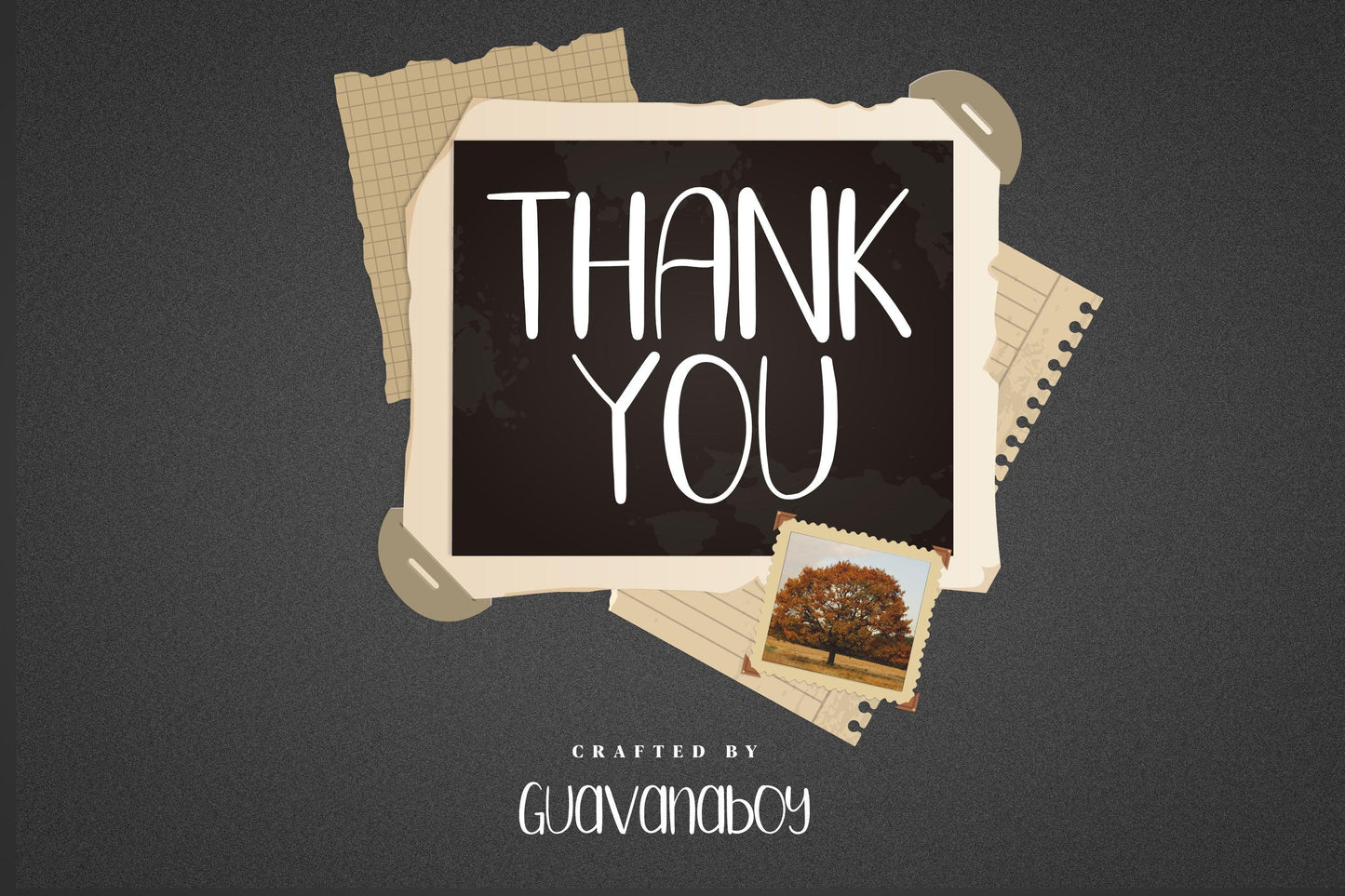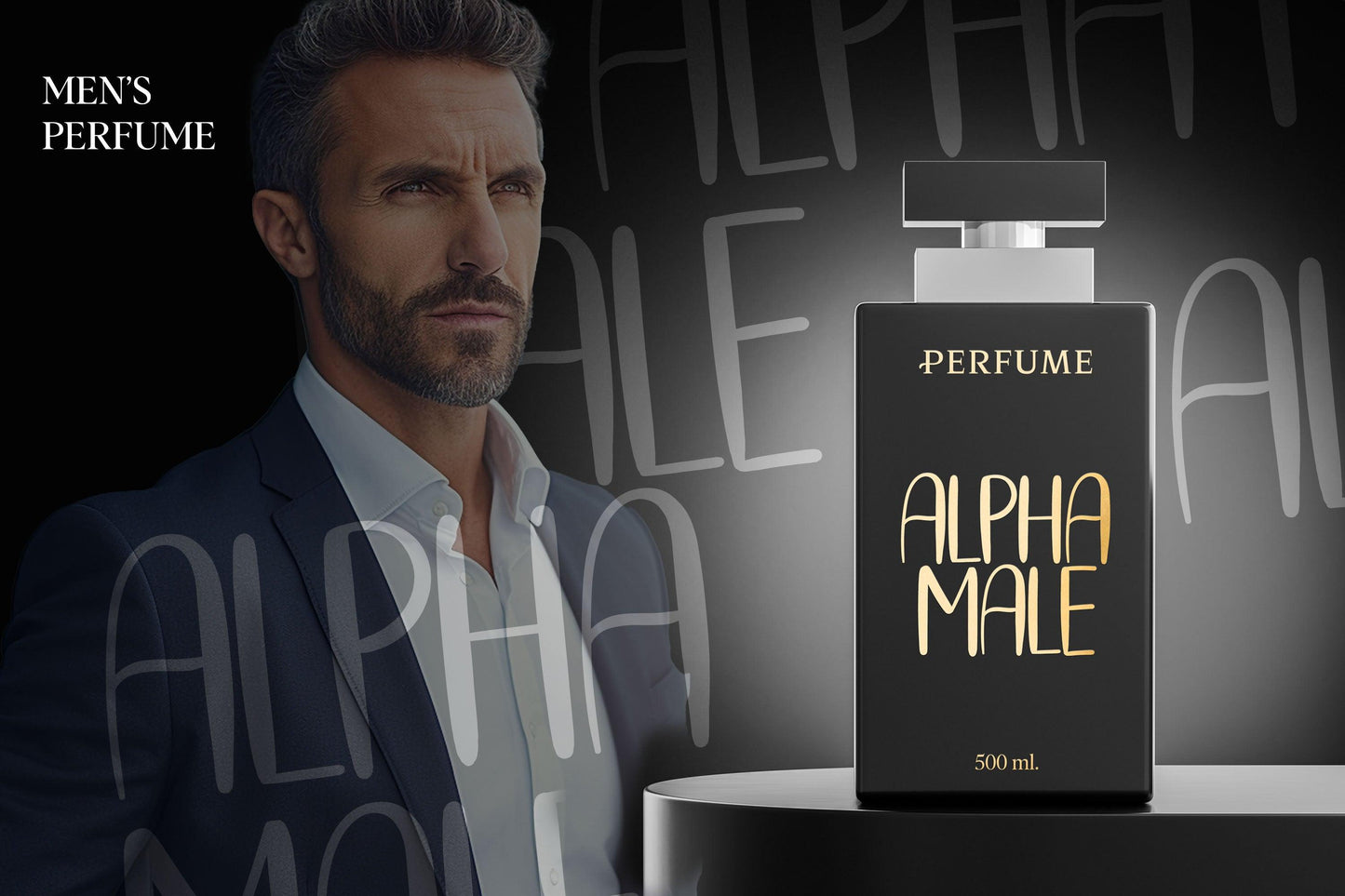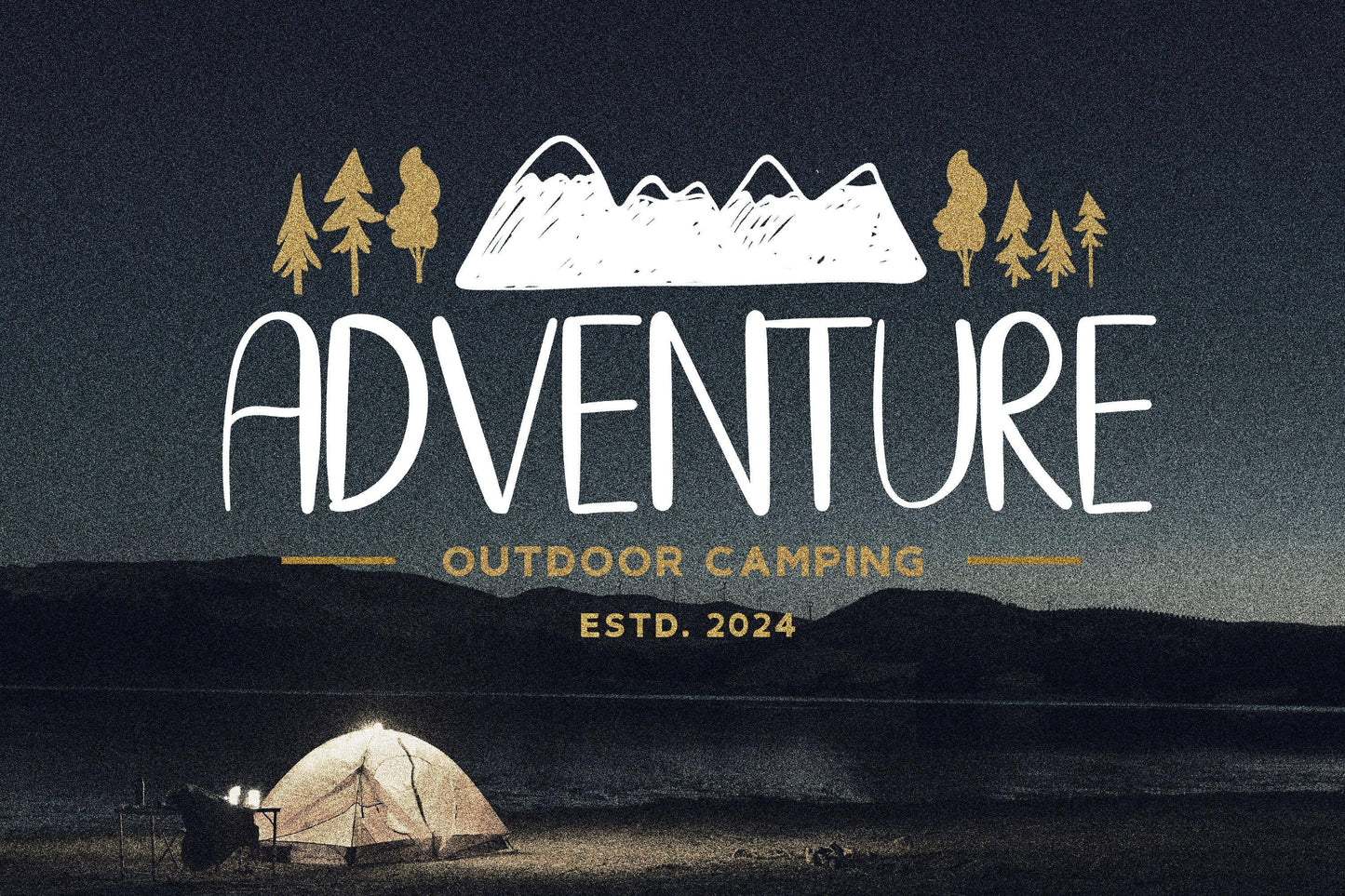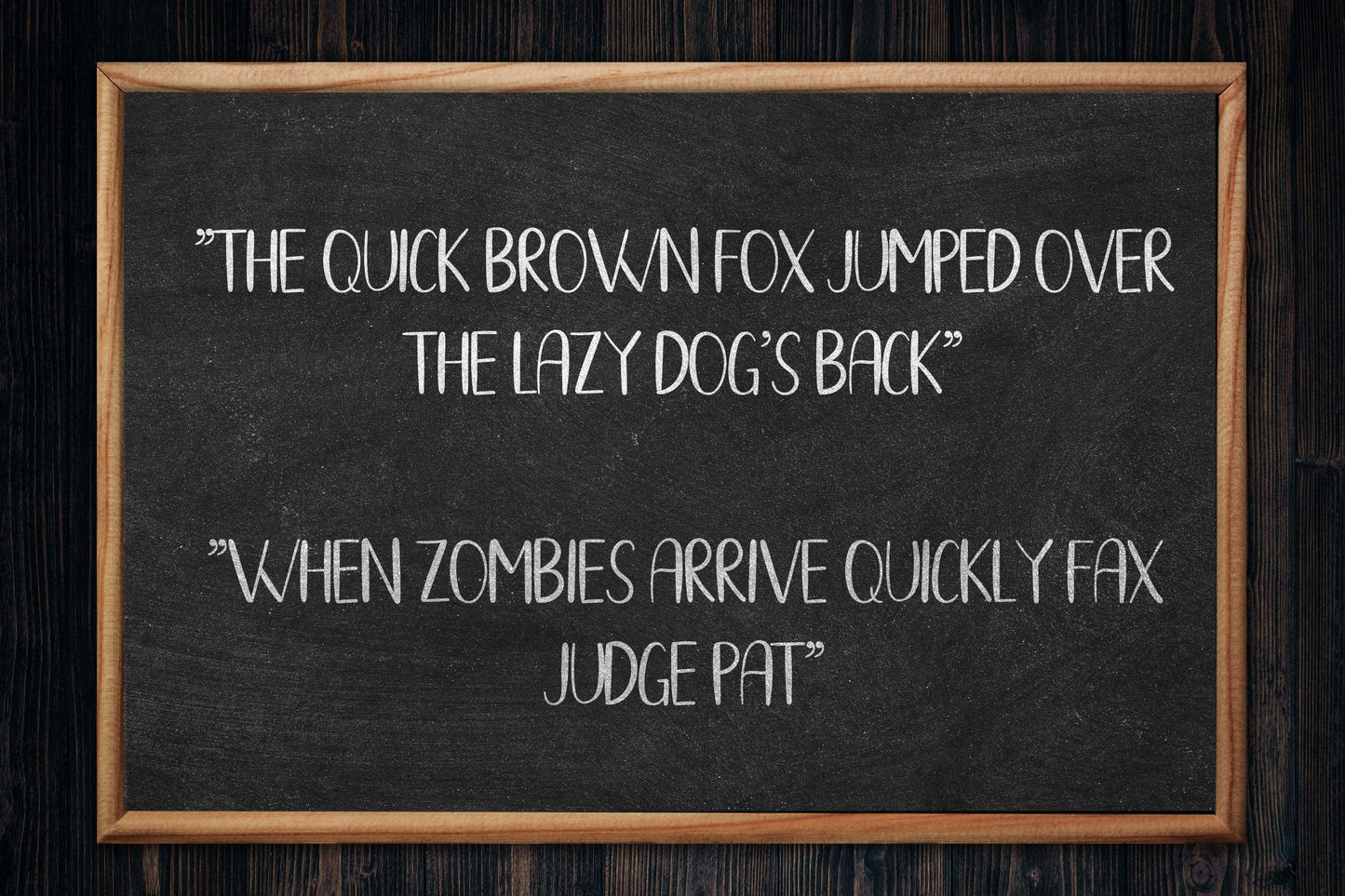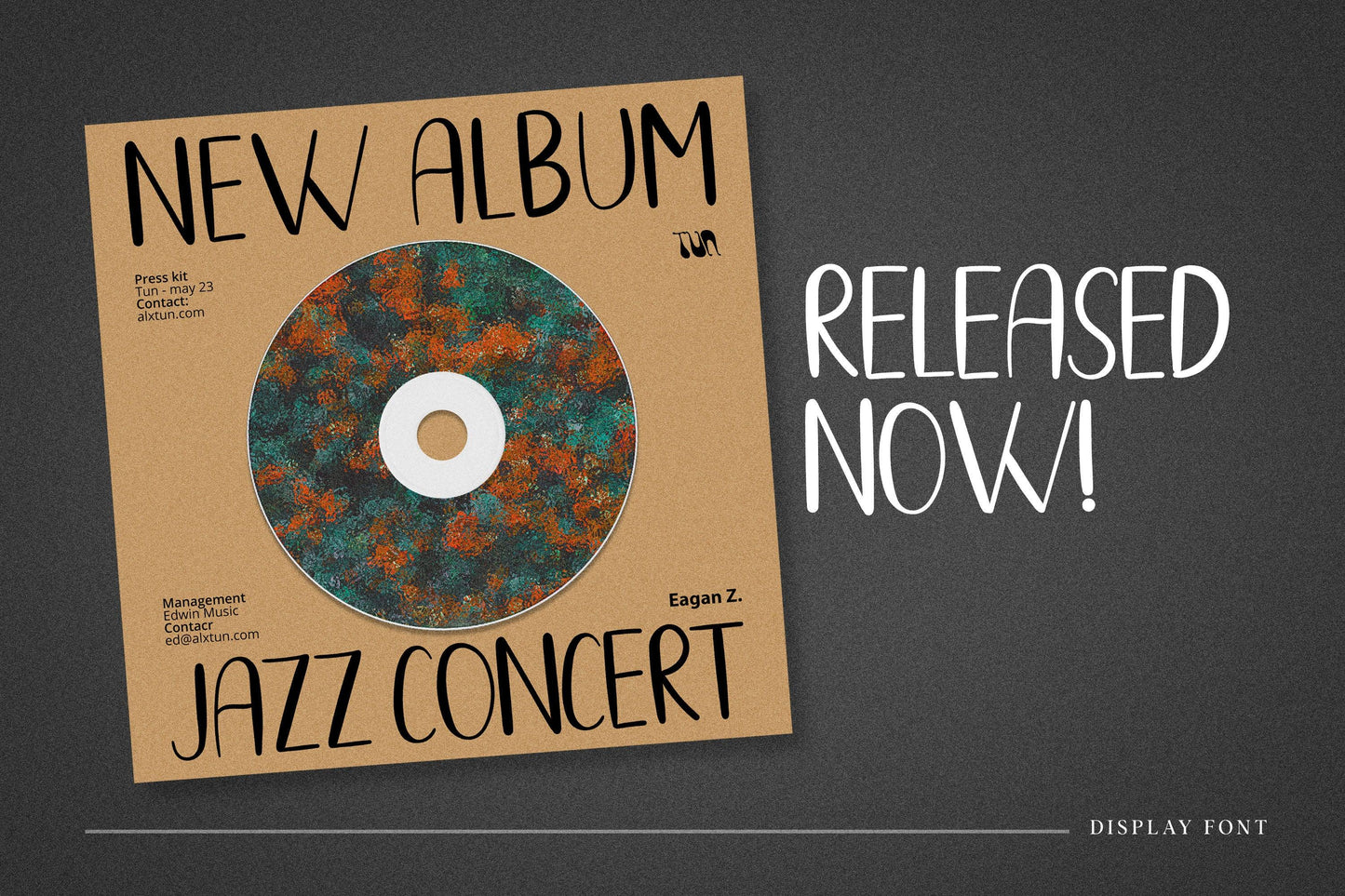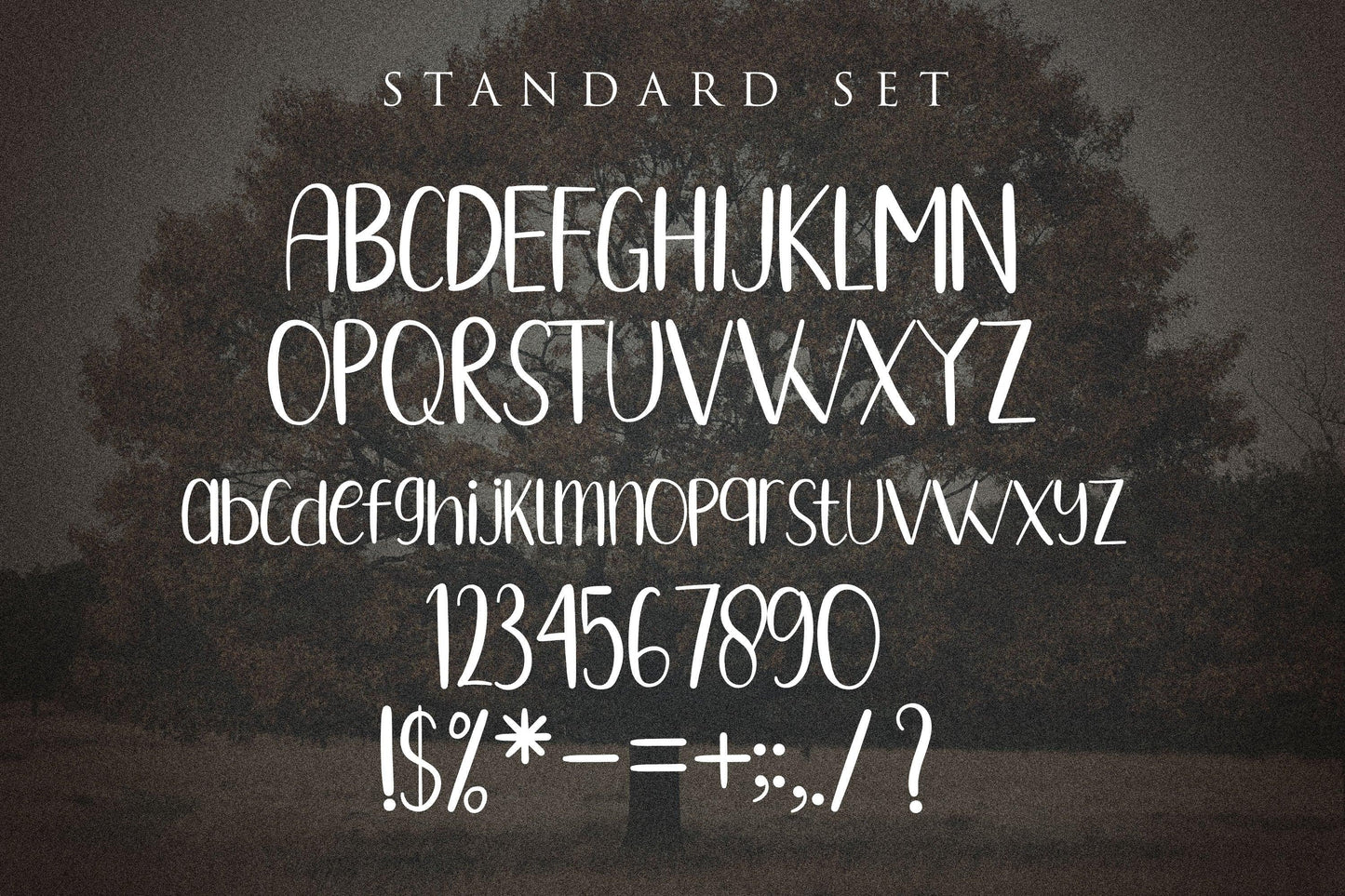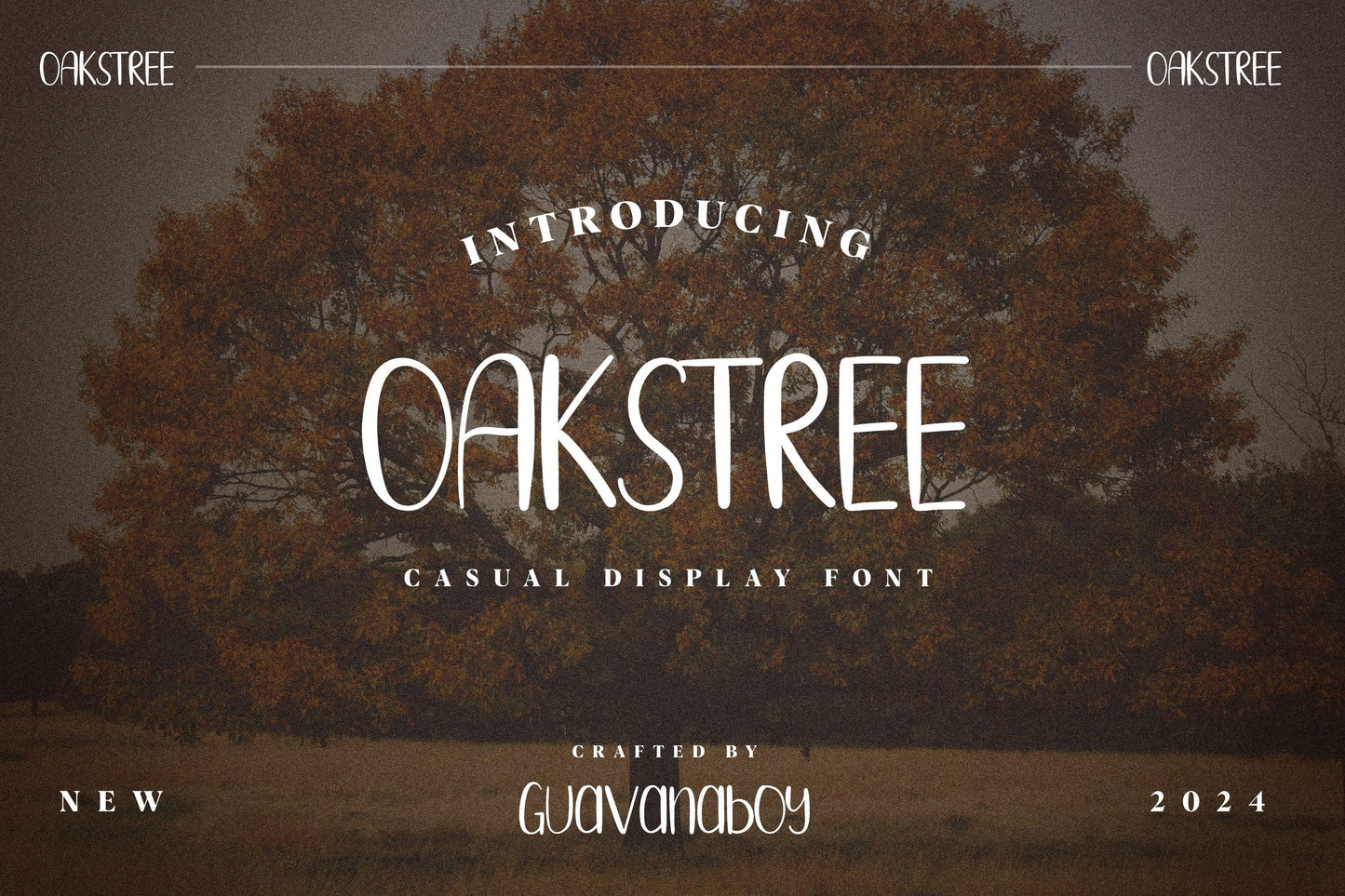
Oakstree - Casual Display Font
Add a touch of playfulness to your designs with Oakstree, a Casual Display Font perfect for creating bold and eye-catching visuals. With its relaxed and approachable style, Oakstree is ideal for logos, posters, social media graphics, product packaging, and more. Whether you're designing for a fun brand or crafting a creative project, this font brings energy and personality to every design.
- Complete Character Set: Includes uppercase, lowercase, numbers, punctuation, and multilingual support.